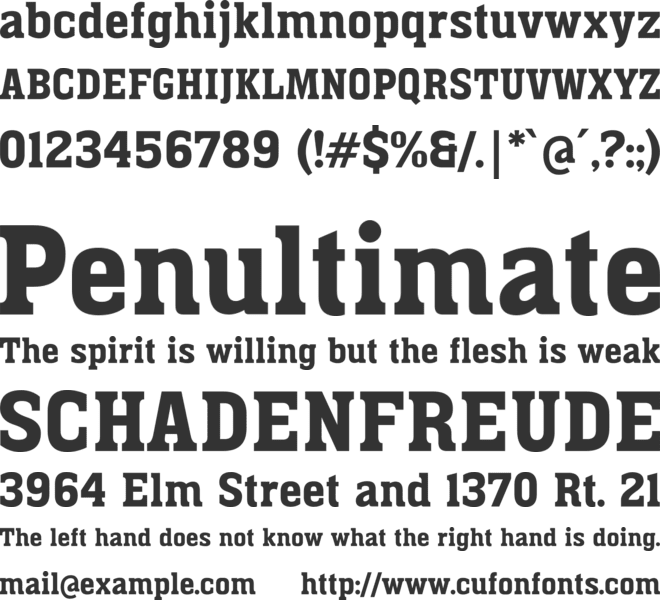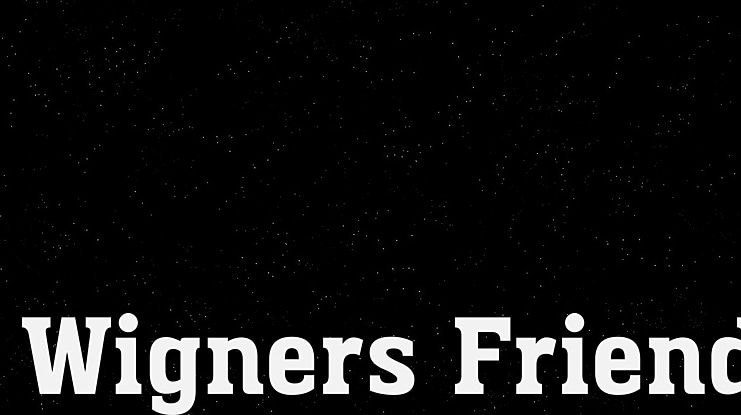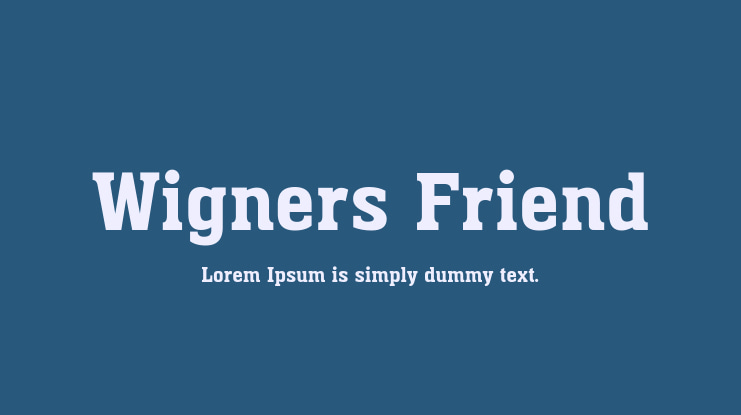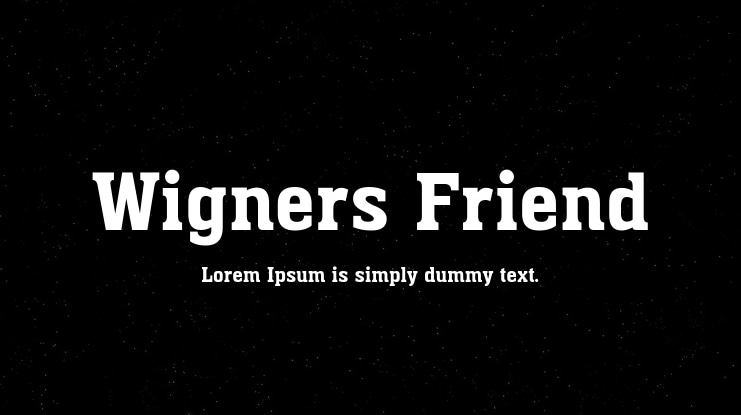
Wigners Friend was a very quick design because I needed it yesterday. It is a bit rough and ready. Oh well ...
This font was built to use in a graphic design project I was involved in and it proved useful in that role.
This font was made in Sheffield, South Yorkshire!